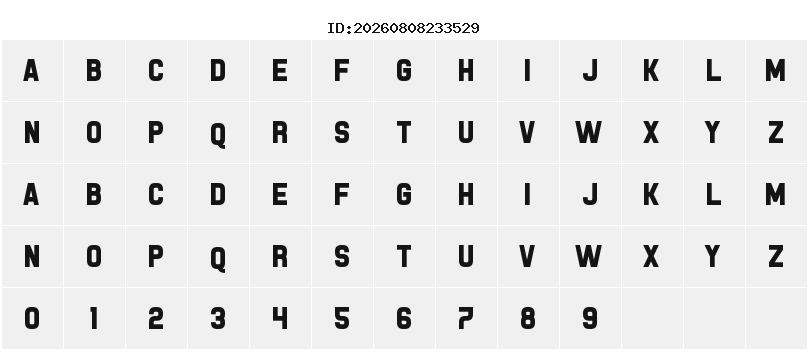
Piston Pressure Preview
• Font Name: Piston Pressure
• Full Font Name: Piston Pressure
• Version: Version 1.00 November 6, 2013, initial release
About Piston Pressure.otf
Piston Pressure.otf is a modern, elegant sans-serif font designed for ultimate readability and visual harmony. Perfect for branding, headlines, web design, and print materials.